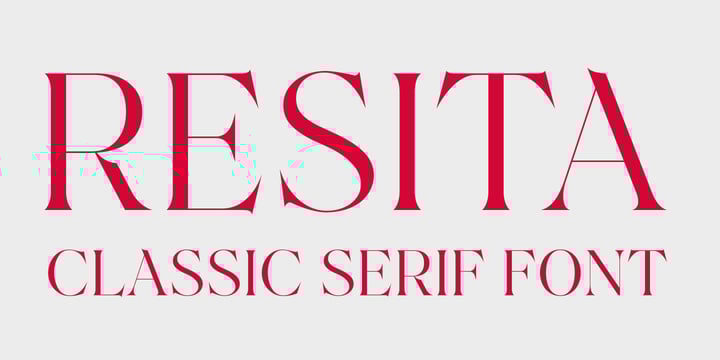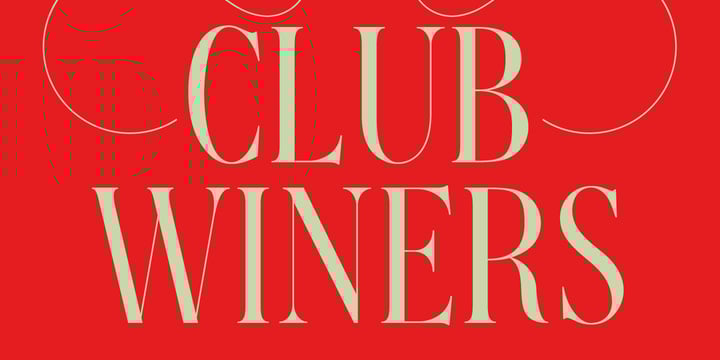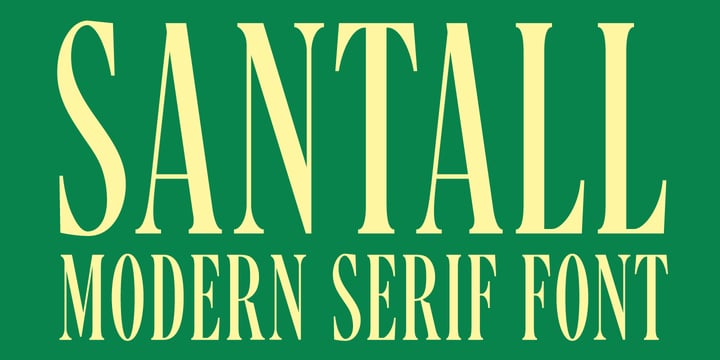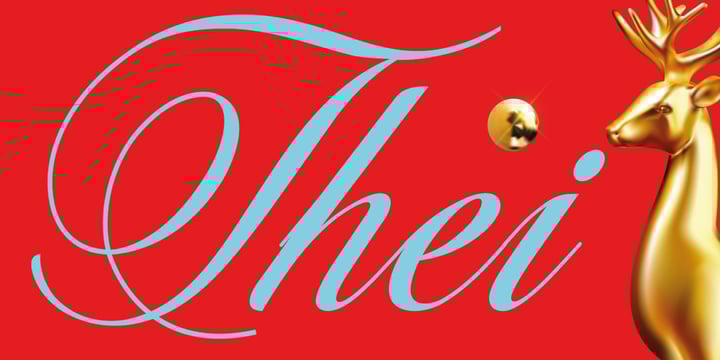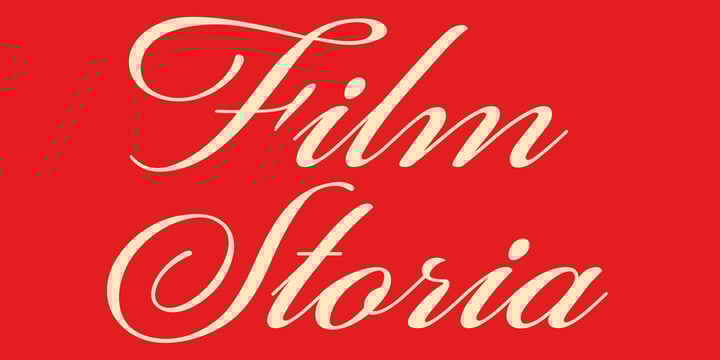
Christmas Fonts Bundle
Unwrap the magic of the season with the Great Christmas Fonts Bundle! This carefully curated collection blends timeless serif elegance with flowing calligraphic artistry, giving you endless creative freedom to craft breathtaking holiday designs. Whether you’re designing Christmas cards, festive invitations, social media graphics, gift tags, or seasonal branding, these fonts help you create compositions that sparkle with warmth and sophistication.
Films Storia, Thei, Actalle - have additional decor elements like wings, swooshes to make your design more rich.